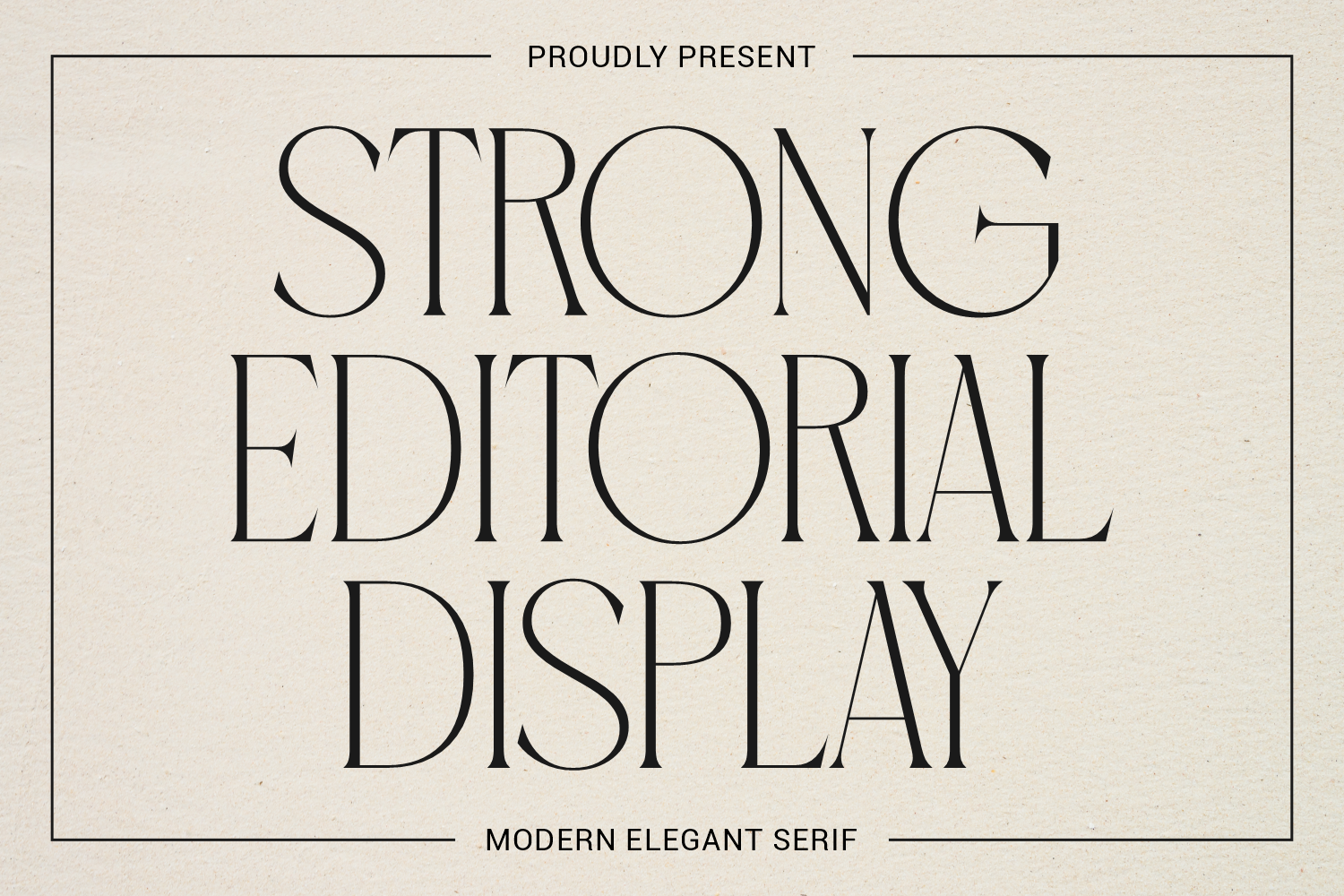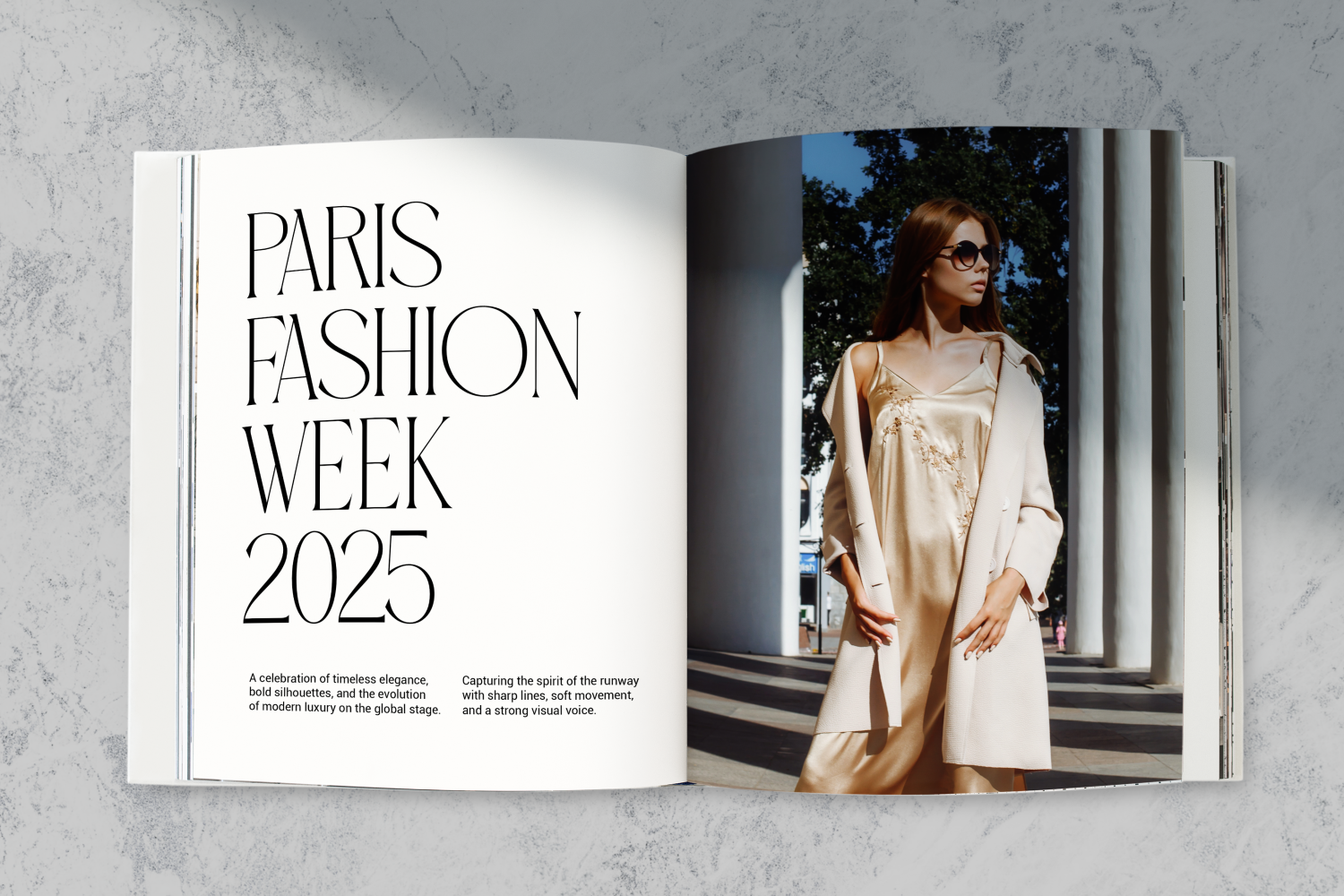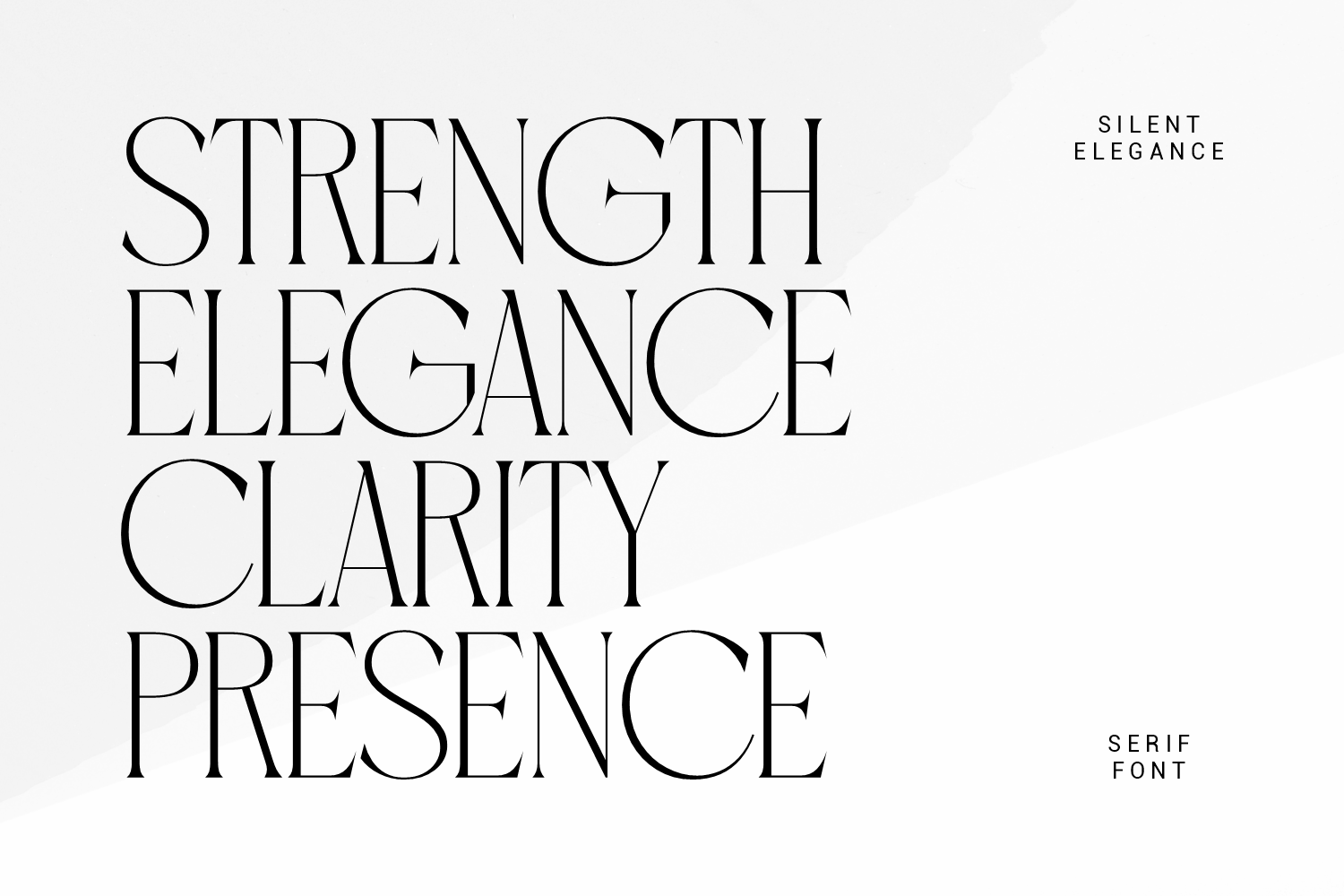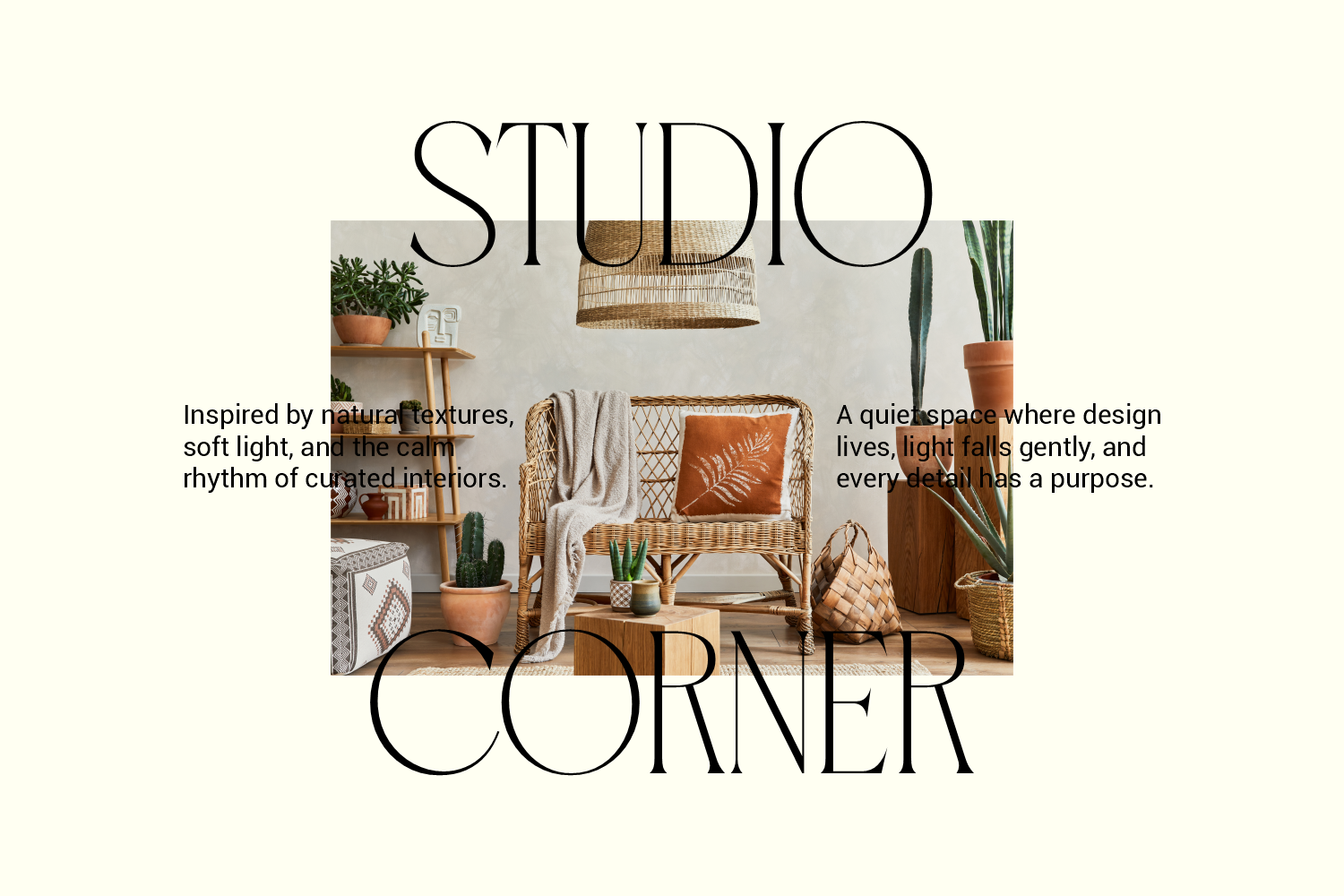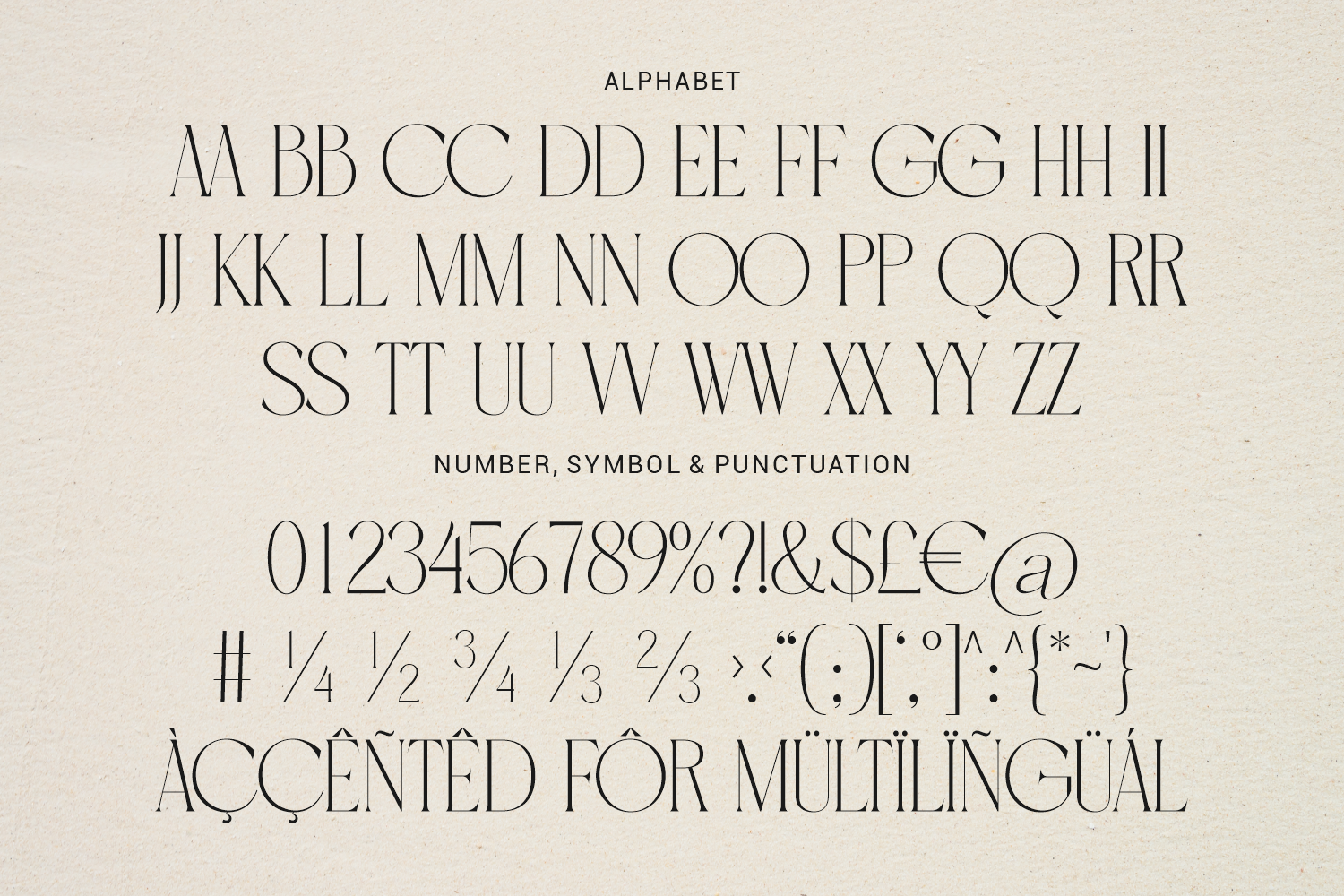
Strong Editorial Display is a high-contrast, fashion-forward serif font designed for magazine titles and luxury branding. With its ultra-thin strokes, sharp points, and elegant presence, it’s a statement-making typeface for sophisticated editorial and upscale projects.